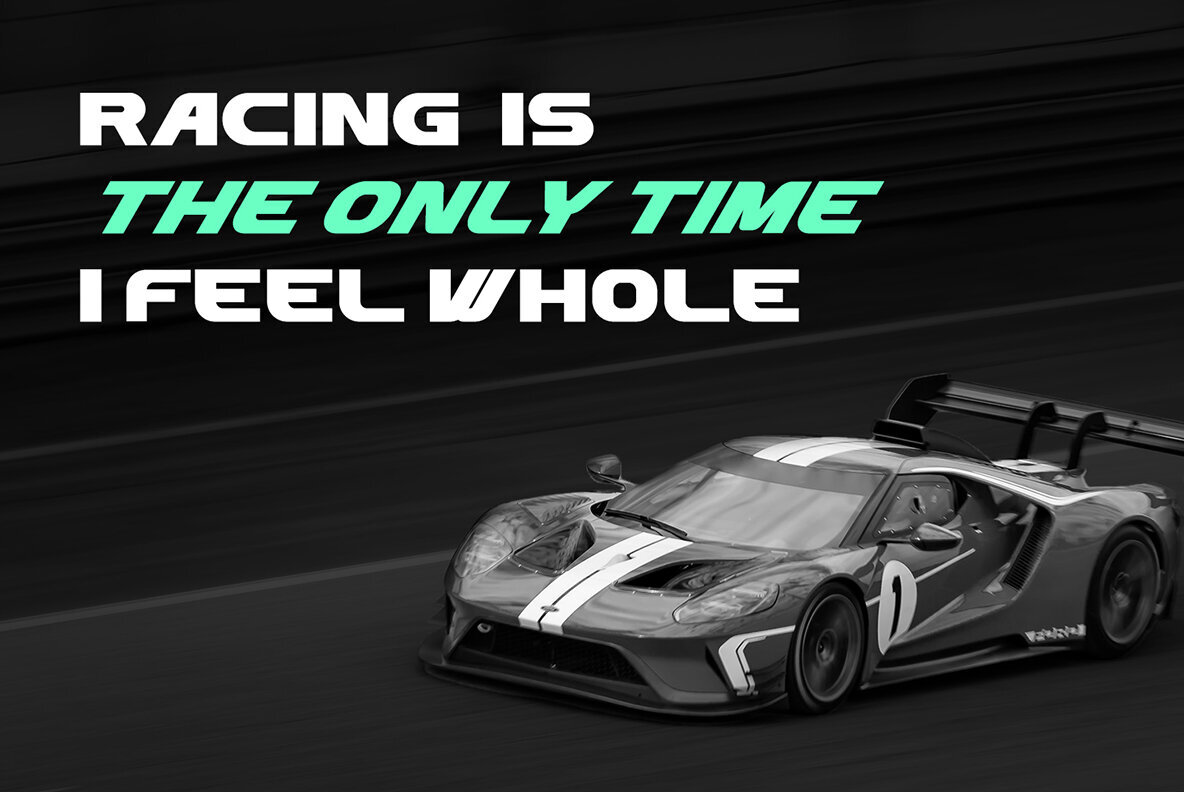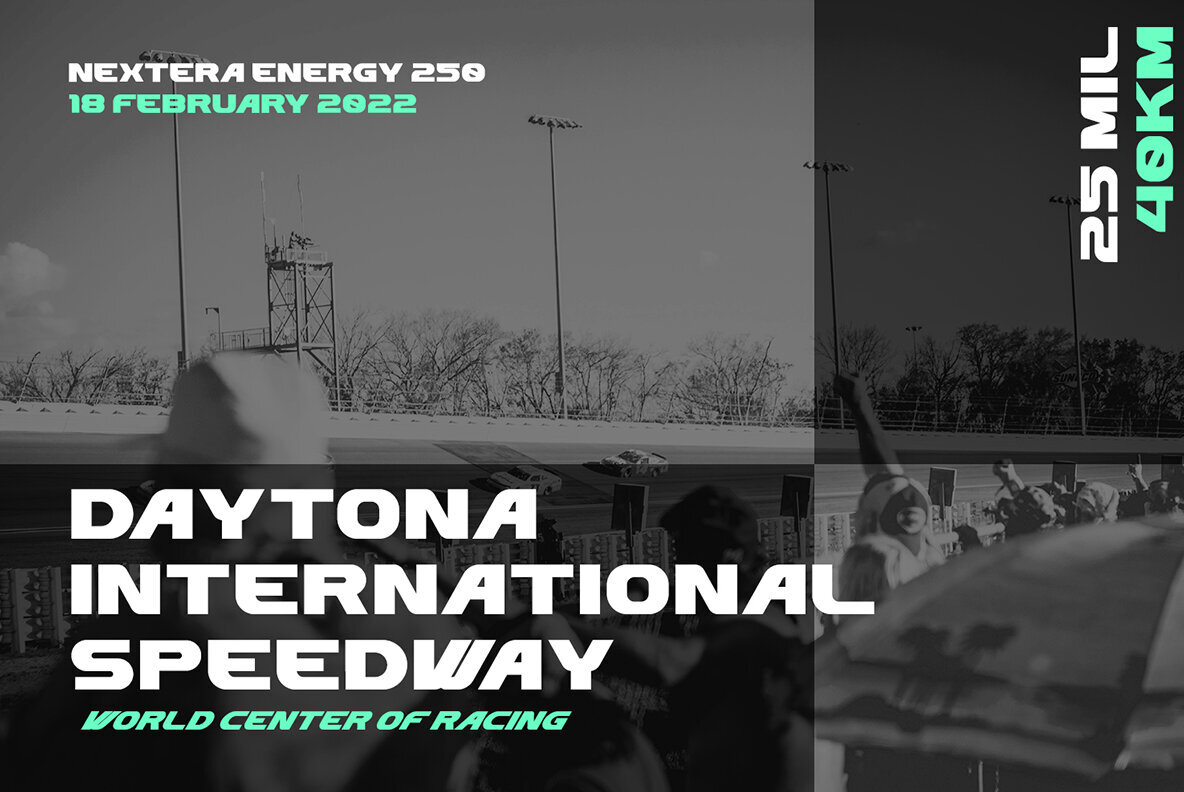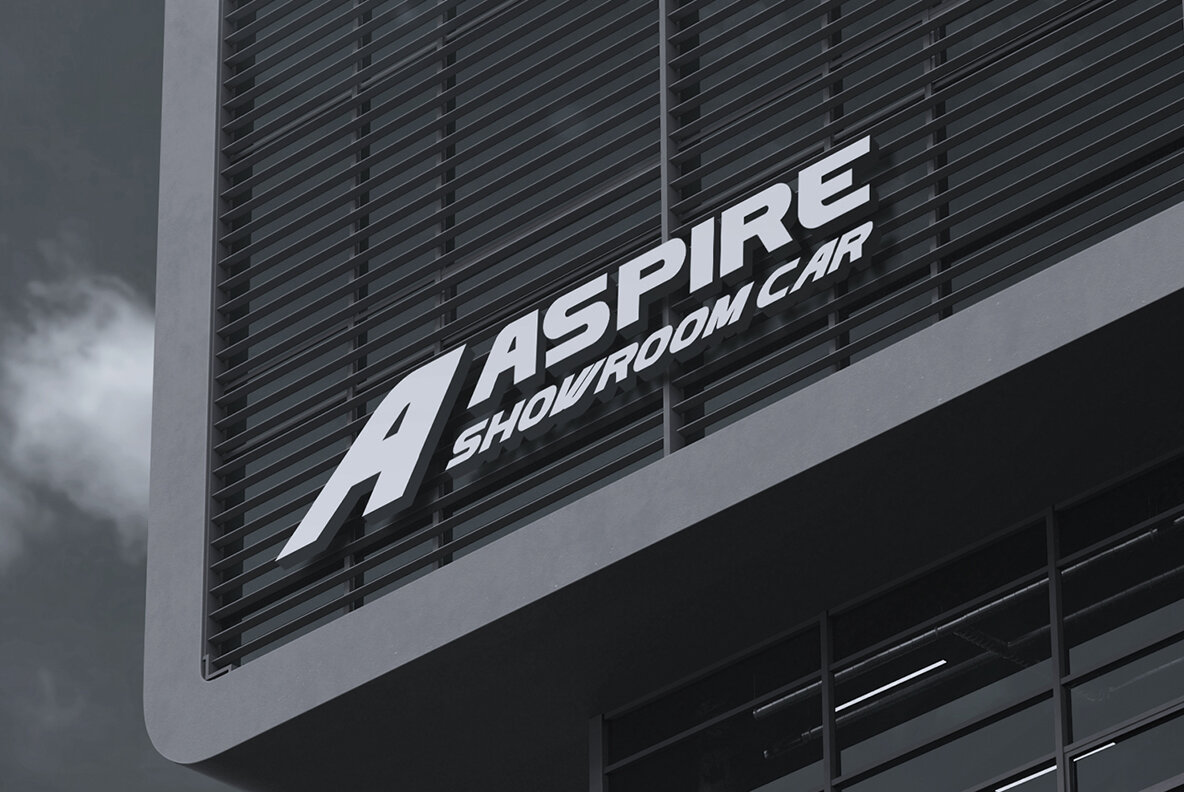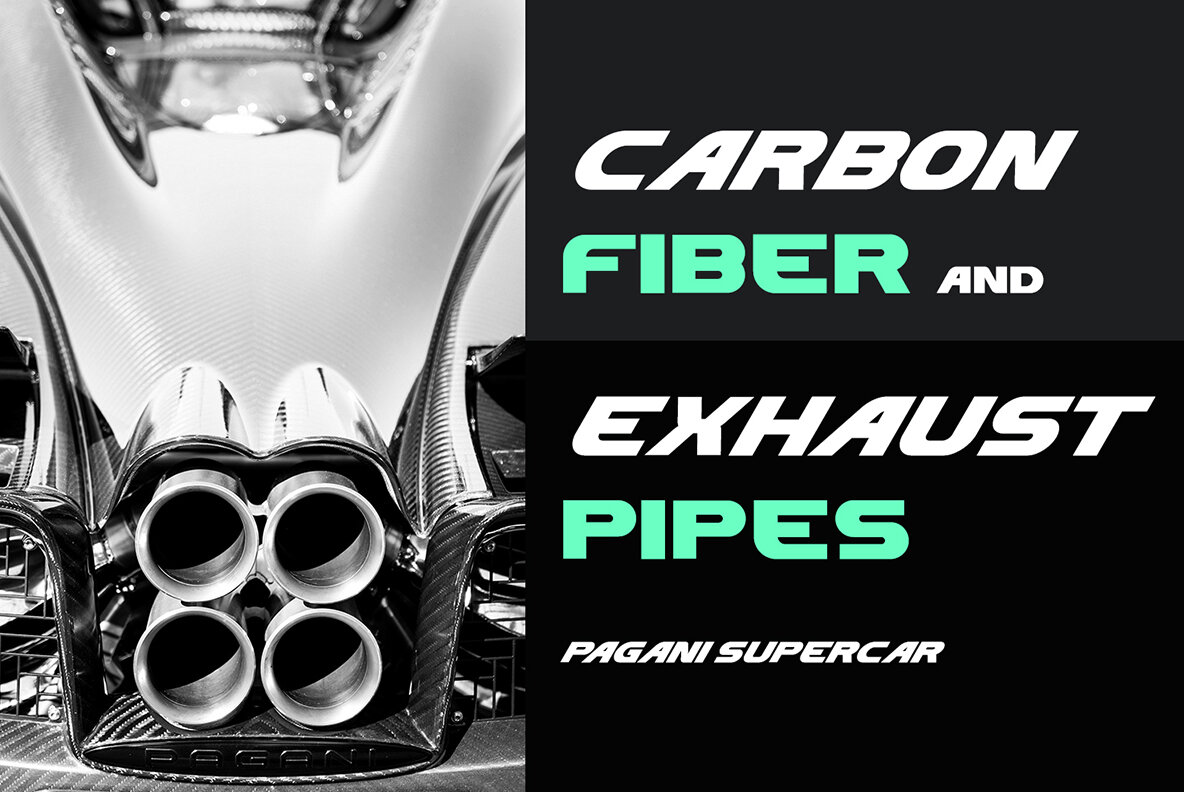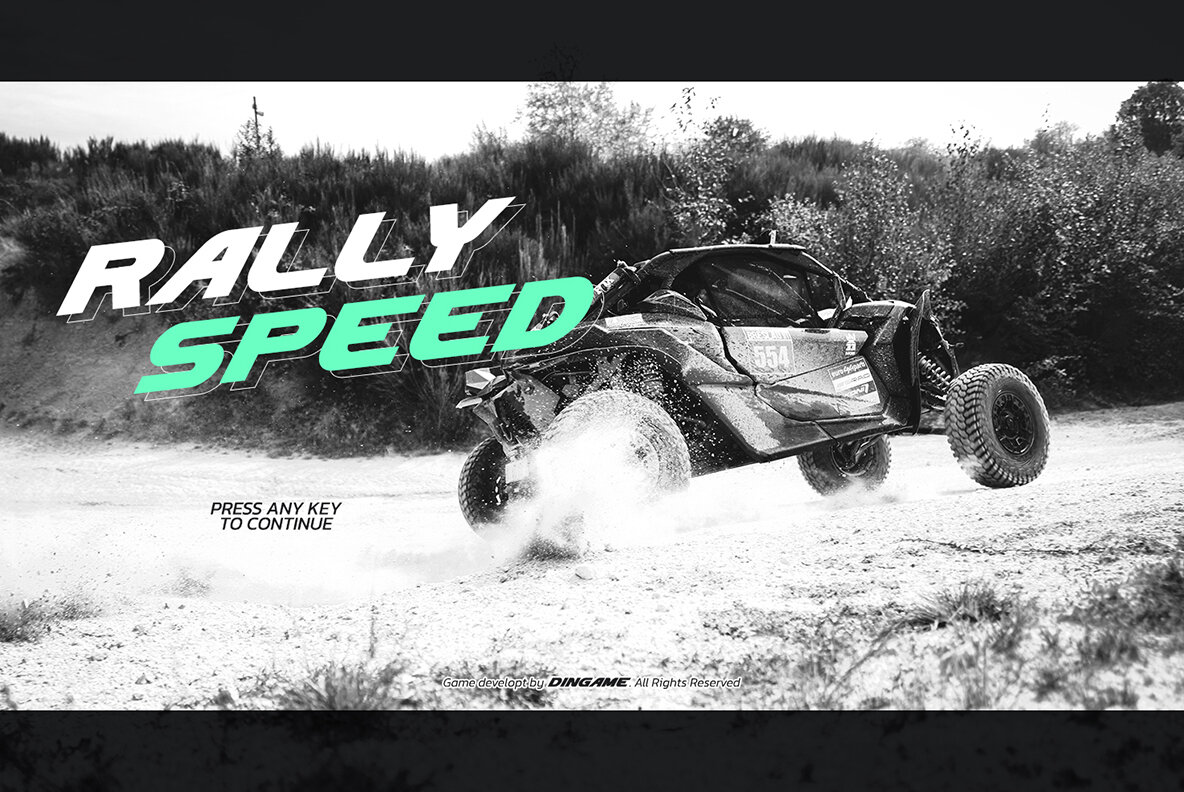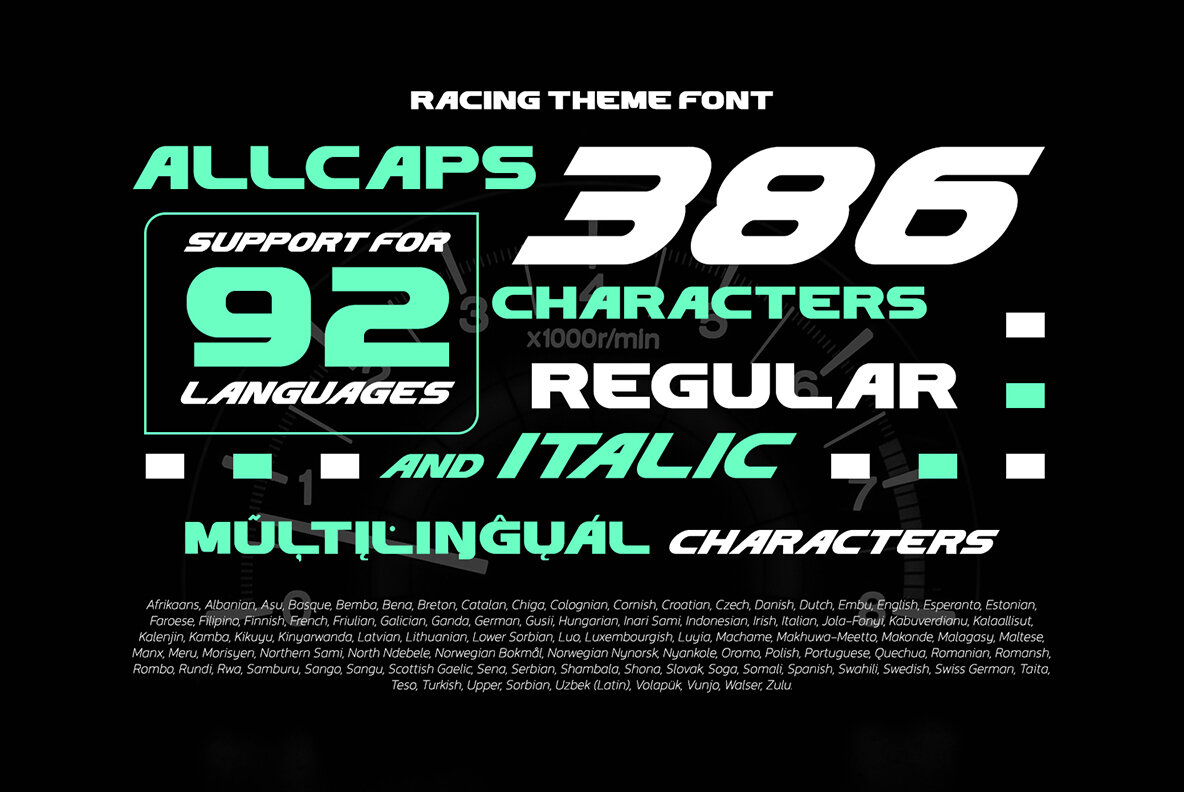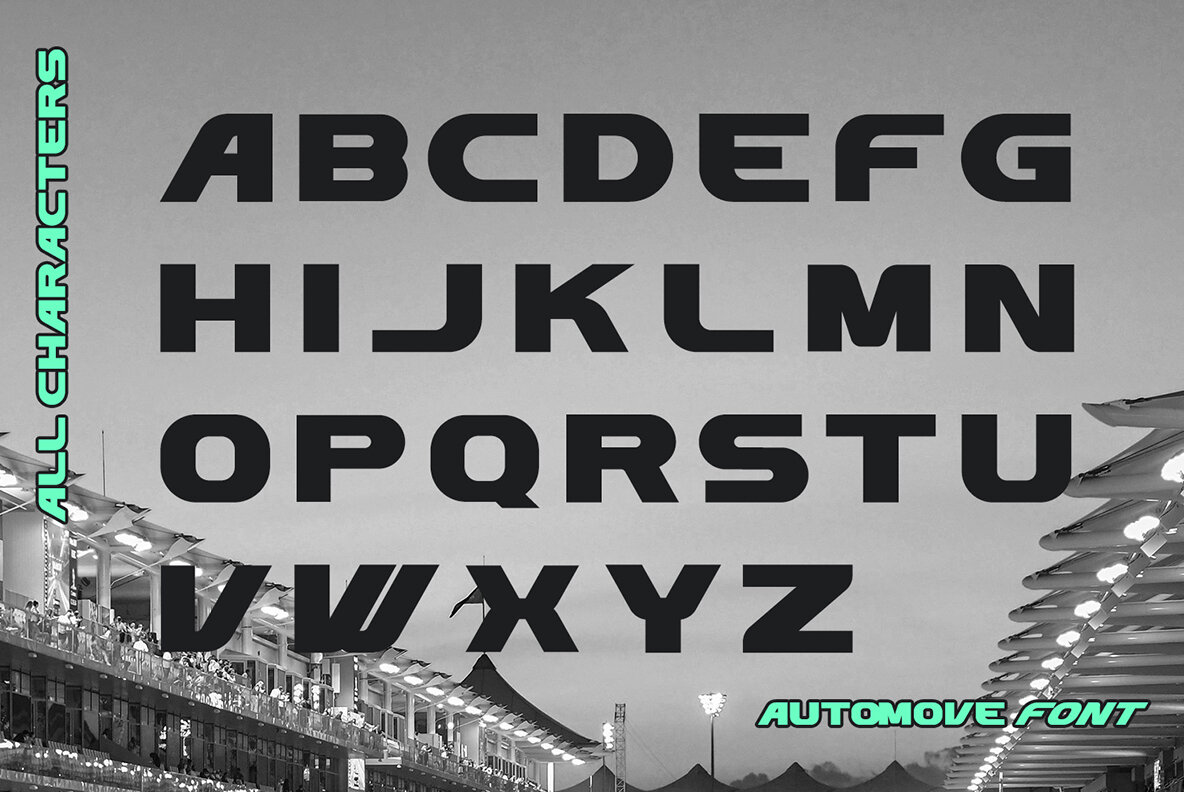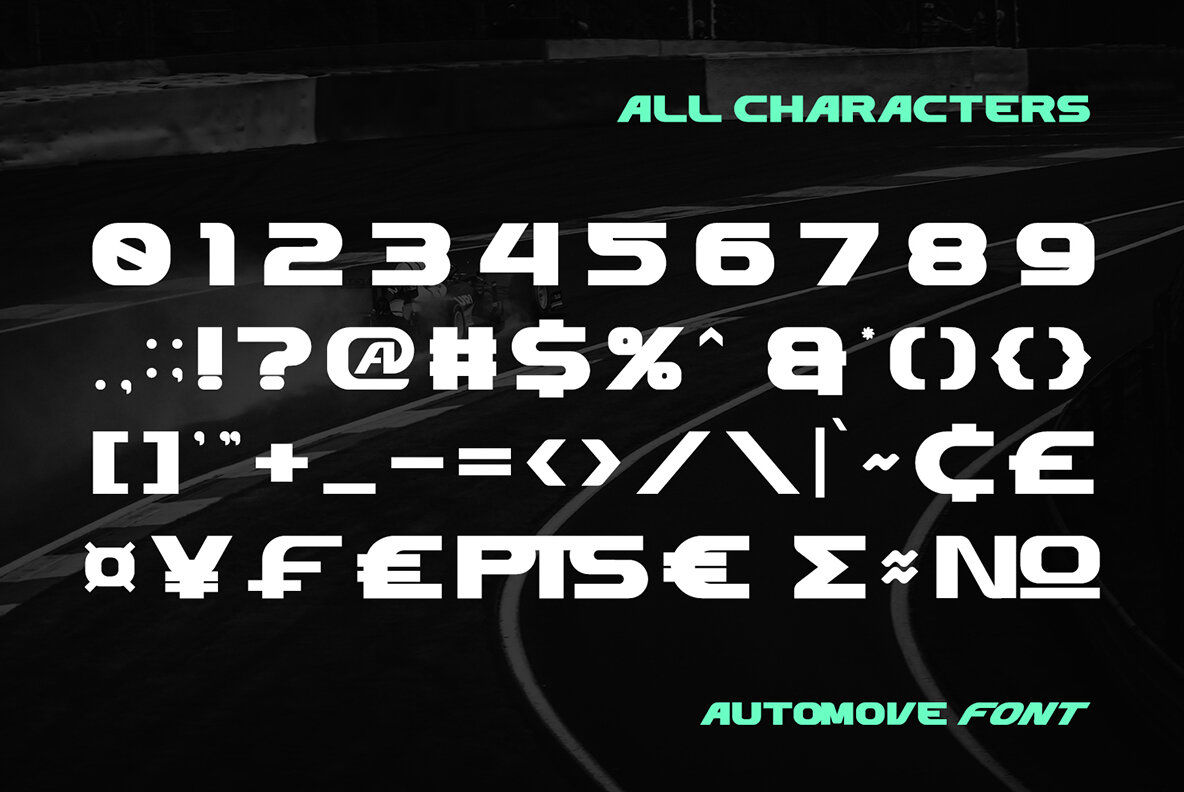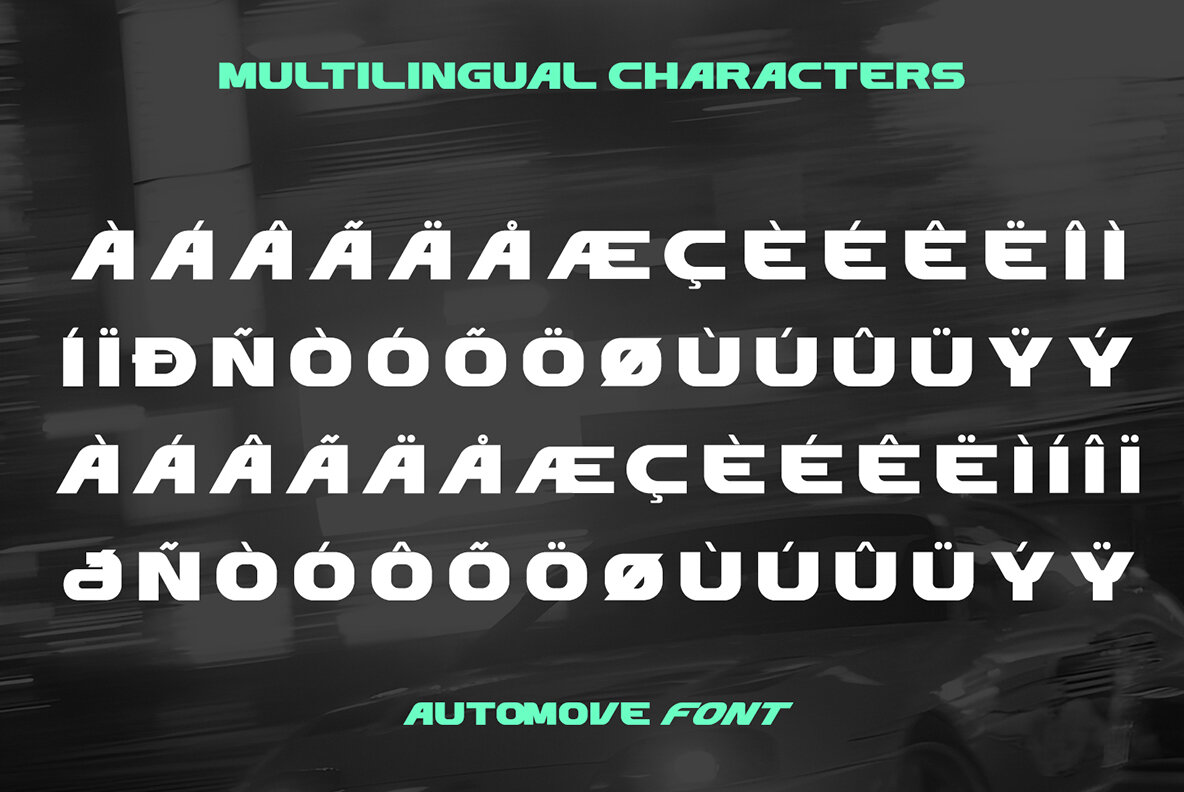
Automove Font
There are a lot of considerations when selecting a font type for an important project either for your own company or a daily used font. Therefore, Automove, a display font in the racing theme capital letters, is carefully and accurately created to meet your design needs.
This font is available in two versions, regular and italic. Automove, which seems to be a long lasting font amid other typographies owing to its unique styles and shapes, is generally applicable to large-sized texts in titles instead of the contents of the texts due to its readability in such large-sized letters. In addition, this font provides interesting features to help designers improve their design products.
- Multilingual Supports
- Numerals and Punctuations
Automove is perfectly suitable for doing design projects such as posters, logos, book covers, headings, printed products, merchandise, social media, etc. Find out more ways to use this font by taking a look at the font preview.